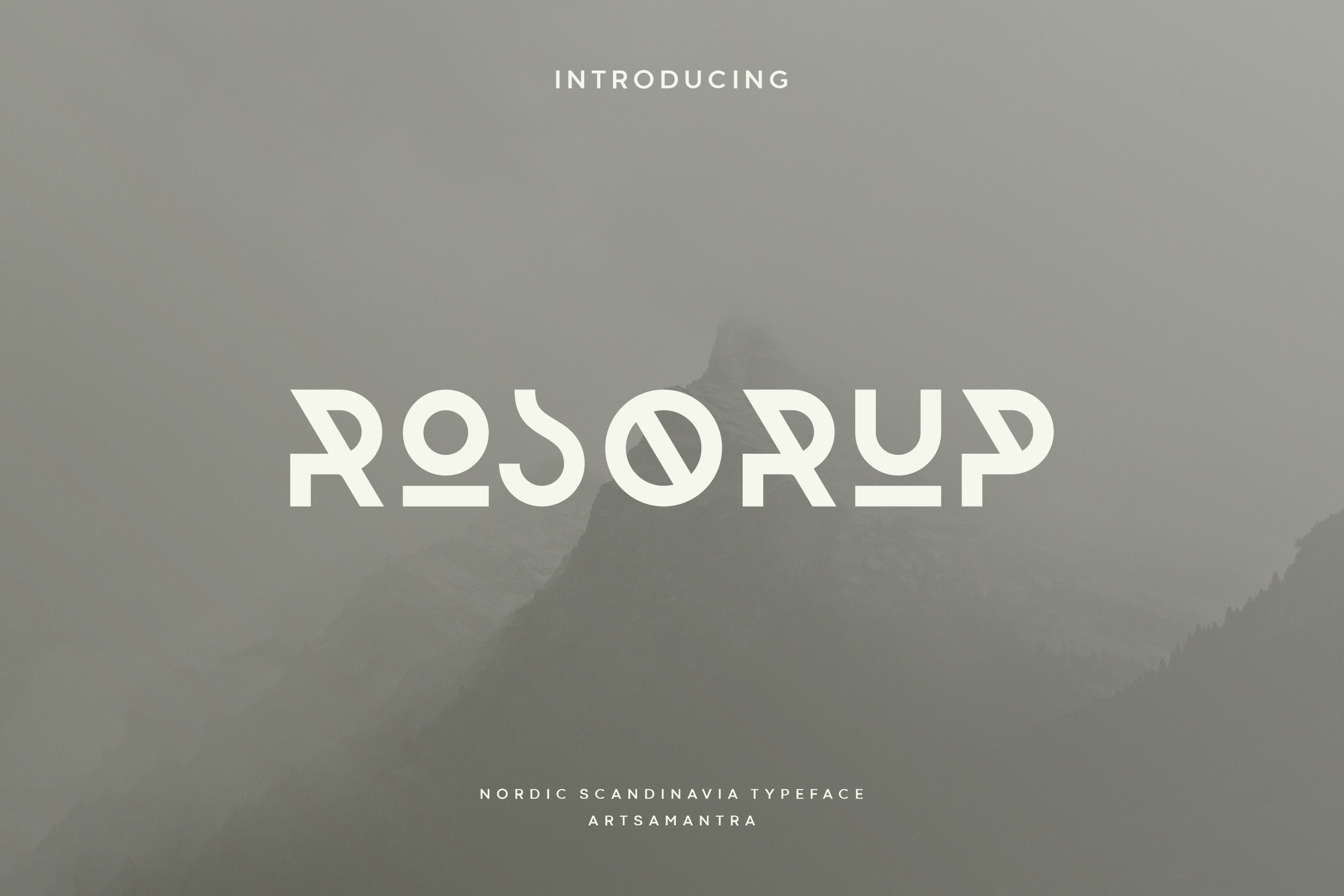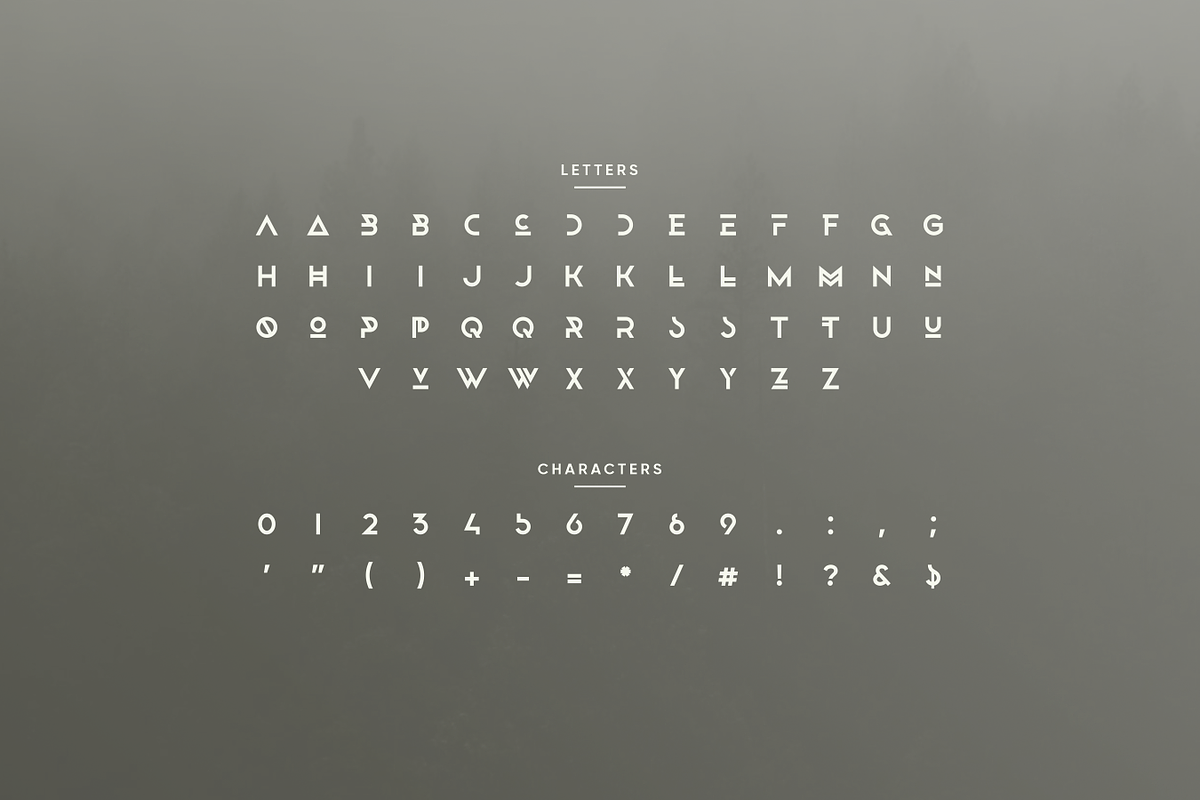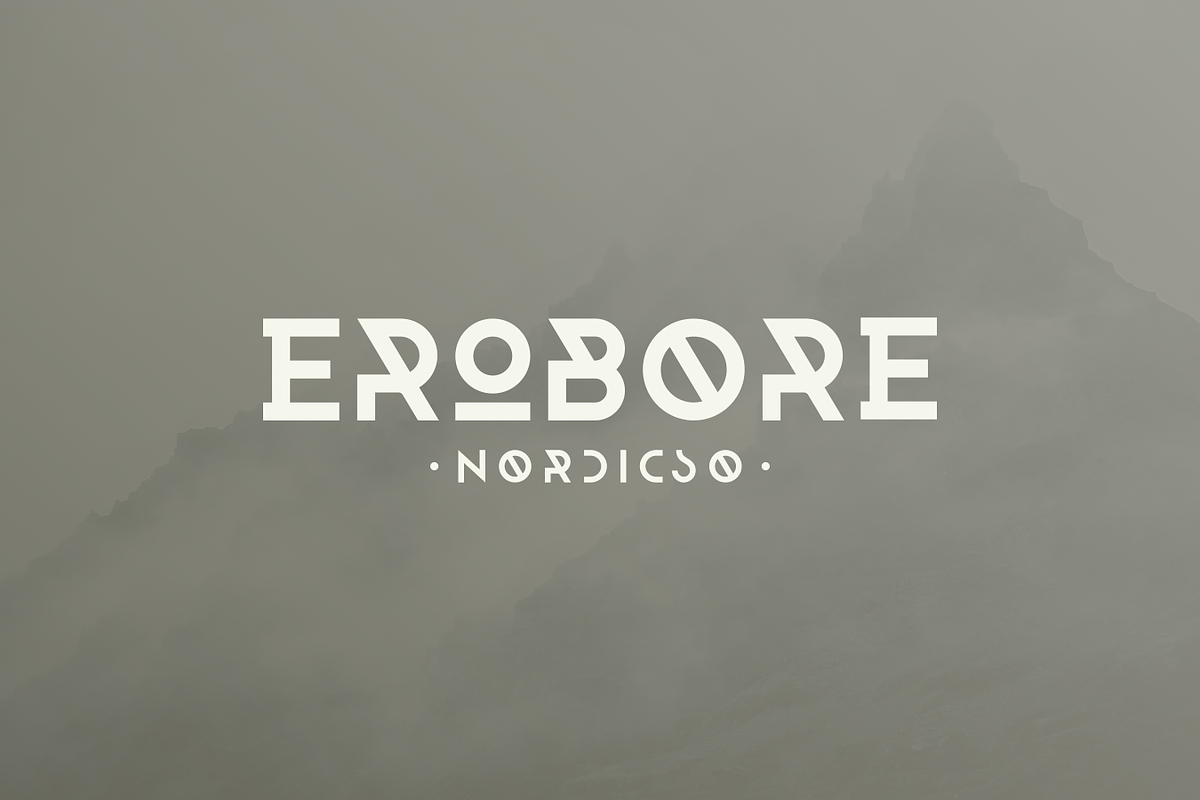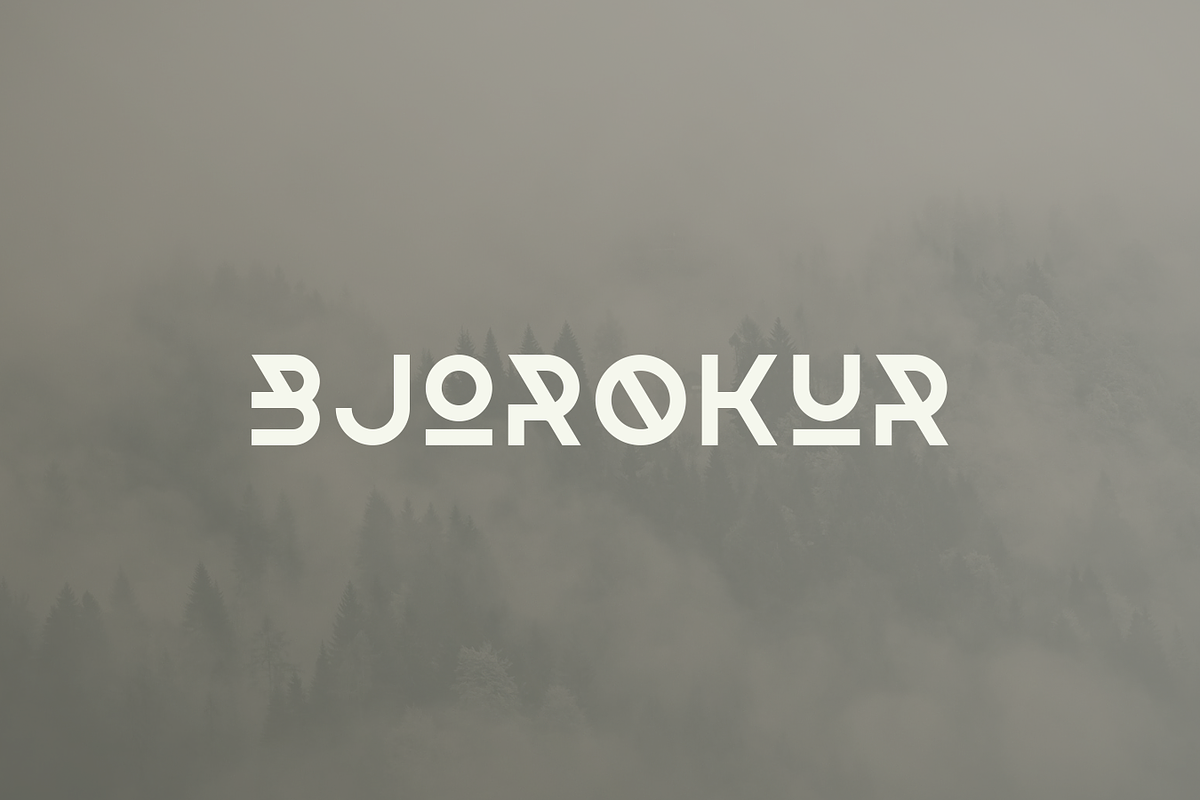
Rosorup - Nordic Typeface
Rosorup is a tribal font, coming with all-caps that is typical of the old era. This font is very suitable for use in headline, title, logo, poster, flyer, and anything that requires a unique geometric typeface with tribal motif. Rosorup has unique and very dynamic upper and lower case character, inspired by nordic runes and the glory of the viking era in the past.